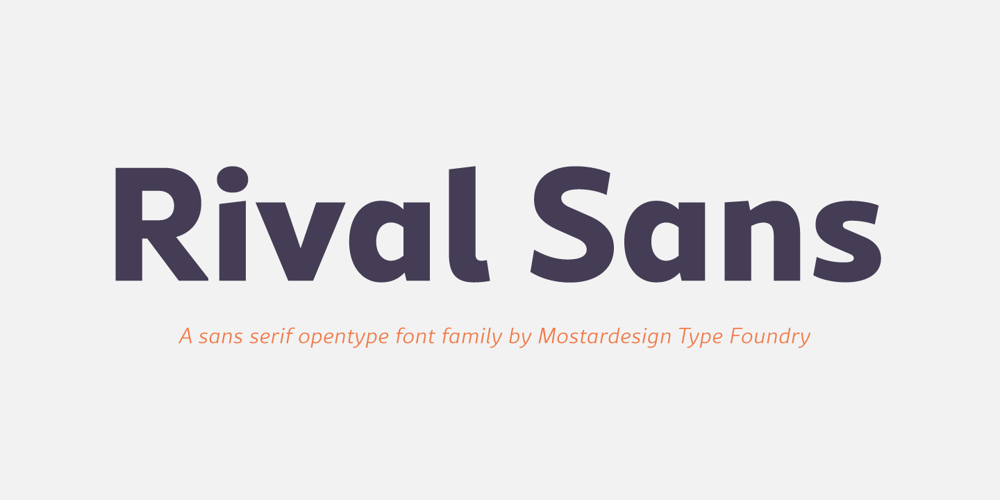
Rival Sans Font Family was designed by Olivier Gourvat and published by Mostardesign. Rival Sans contains 32 styles and family package options. A sans serif with a dynamic look for complex typographic work. Rival Sans is a sans serif font family possessing many strengths. Its 32 fonts and 2 styles, make Rival Sans a very versatile family and suitable for many graphic design projects such as branding, signage, editorial creation, advertising, packaging, broadcasting or logo creation. With the endings cut at 10 degrees and sharp cuts on the top of the stems of certain characters (like the l, b or the d) Rival Sans gives dynamism and readability to the lengthiest of editorial content. This beveled font design also gives rhythm to a text’s sentences as well as a very functional look. All these design details give this new font family a modern, energetic and humanistic look. Rival Sans also has many powerful OpenType features such as case sensitivite forms, small capitals, old style and tabular figures, slashed zero, ligatures, fractions,and alternative characters to give personality to graphic design projects. Designed also for complex editorial content, this typeface has a powerful home kerning system called “Pro Kerning”. With more than 2500 pairs of glyphs and many languages, Pro Kerning optimizes headlines, subtitles, texts as well as long paragraphs in real time. In addition to these extended features, the italic styles of this fonts family have been drawn as fully-fledged styles with different designs from their regular version so that the italic texts look like calligraphic phrases. Rival Sans has an extended character set with over 930 glyphs. This family covers over 130 languages from Western Europe, Eastern Europe and Central Europe. In addition to all the features of its kind, Rival Sans is part of a very complete “type system” with style variants such as the serif version Rival Serif or the slab version Rival Slab. With all these typefaces, you have 62 styles to make your own vibrant and professional graphics or web creations while maintaining consistency in your creations.